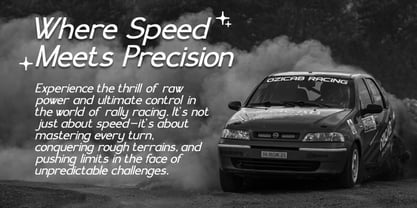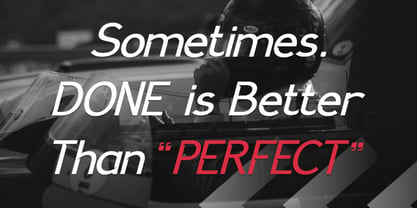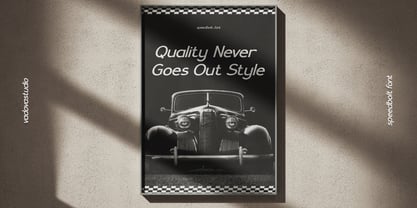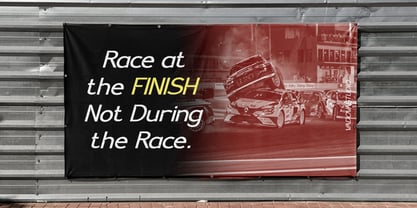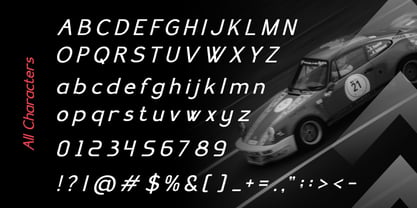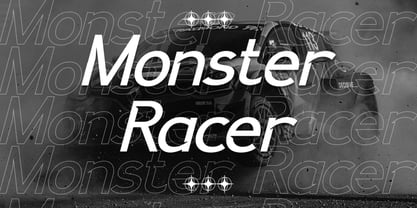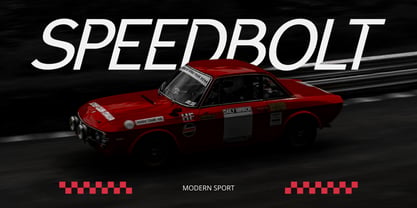
Speedbolt
Speedbolt is a bold and energetic display typeface designed to embody the spirit of speed, performance, and precision. Its forward-leaning posture, aerodynamic letterforms, and sharp, modern styling create an unmistakable visual rhythm that instantly conveys motion and momentum. Whether you're designing for racing teams, extreme sports brands, activewear campaigns, or high-performance product launches. Crafted for maximum visual impact, this font thrives in large-scale applications such as posters, magazine headlines, packaging, and digital banners, while maintaining clarity and sharpness even at mid-size usage. Its streamlined forms and aggressive stance make it especially effective in dynamic layouts where urgency, boldness, and directionality are essential.